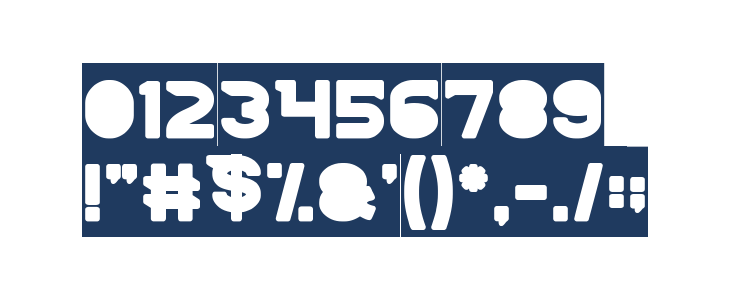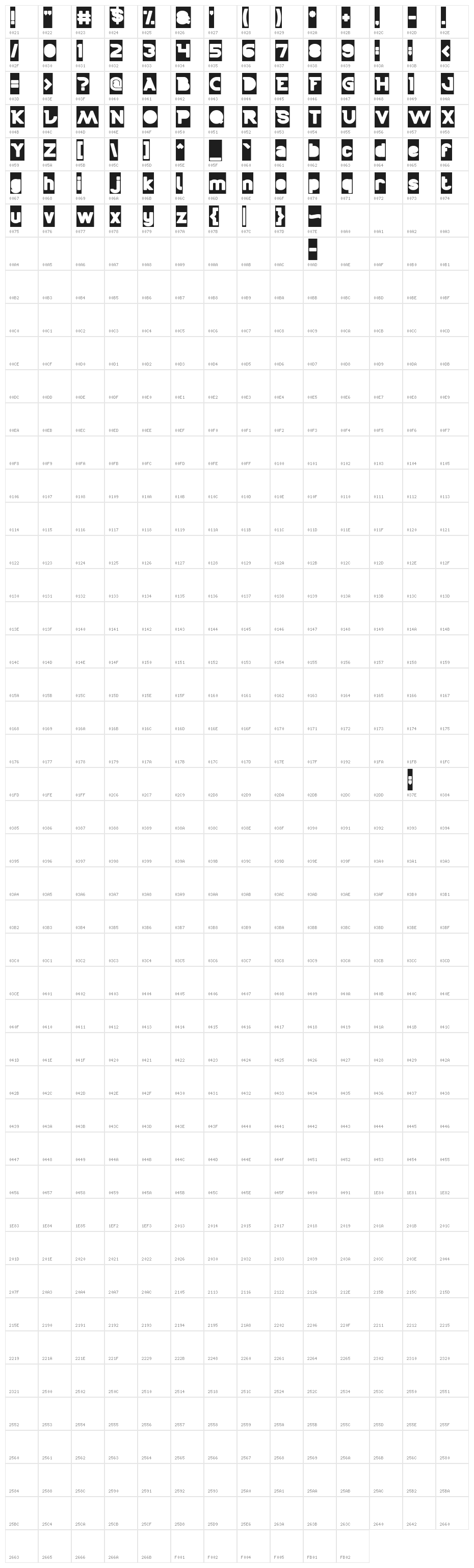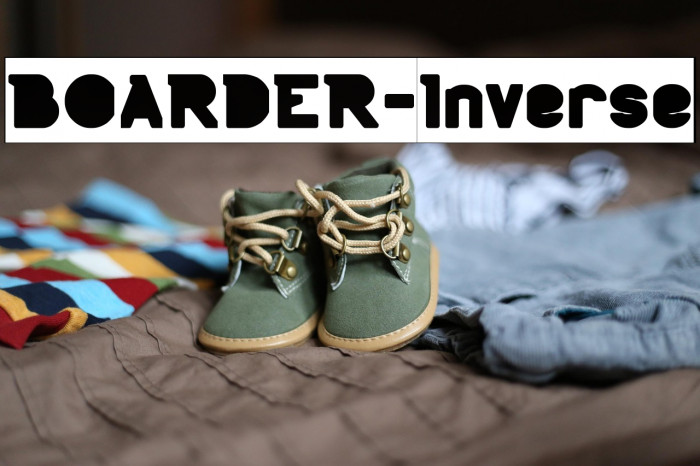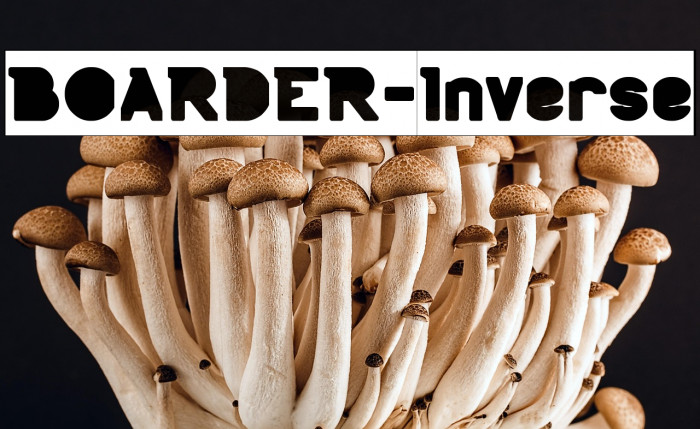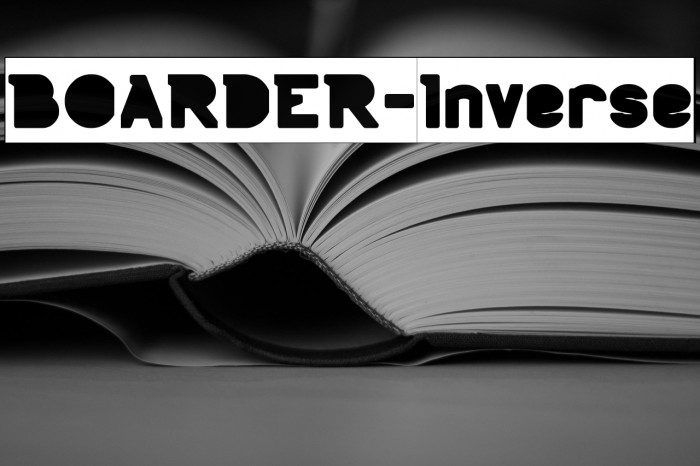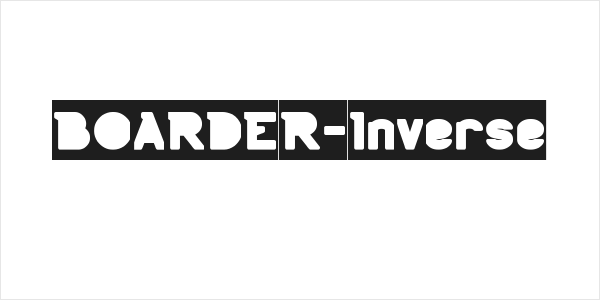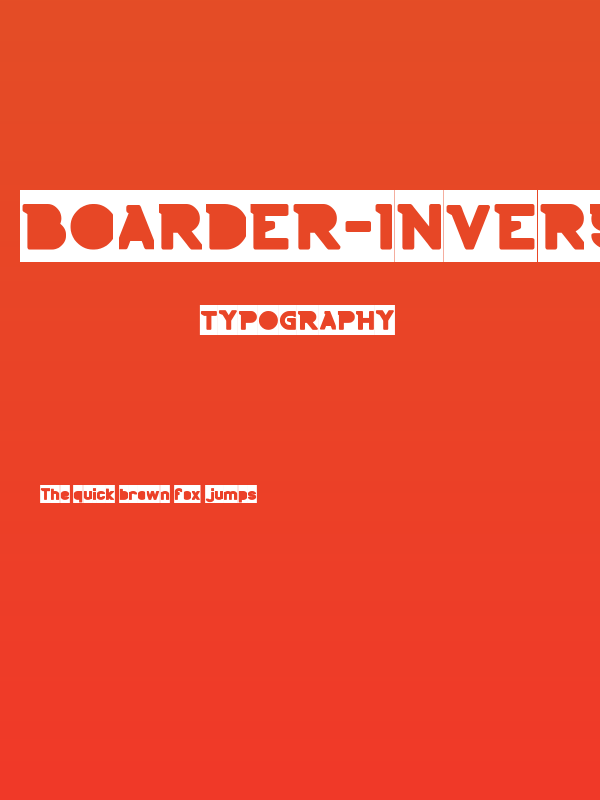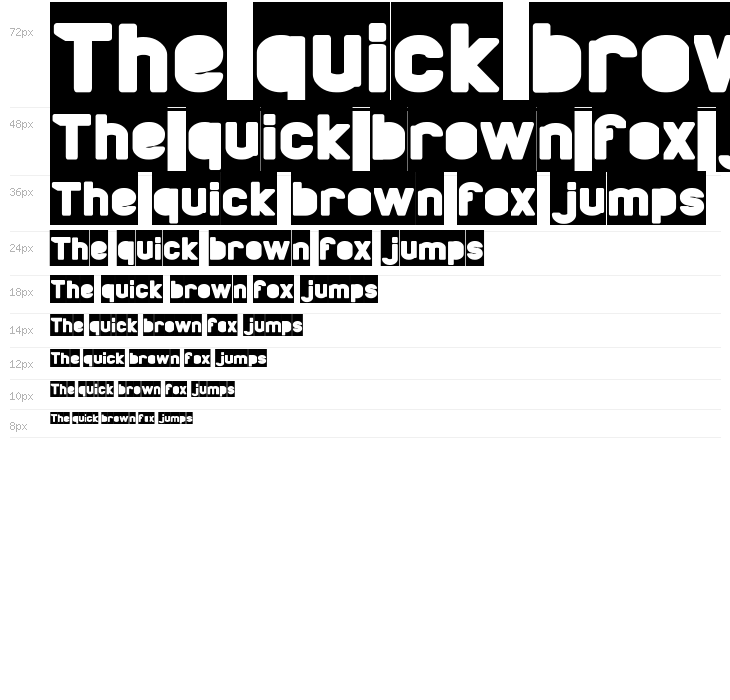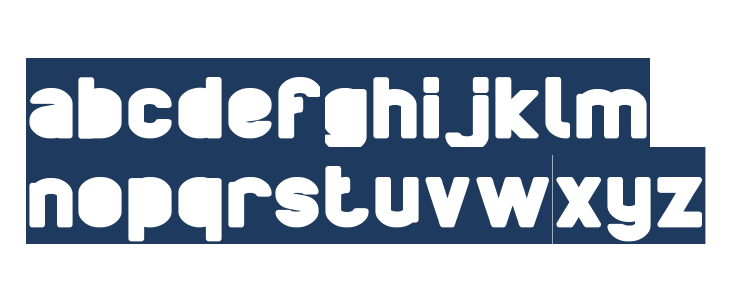
BOARDER-Inverse Font
BOARDER-Inverse Description
This font features bold, blocky characters with a playful and modern aesthetic. Each letter is designed with a unique cut-out style, creating a striking contrast between the solid and negative spaces. The uppercase and lowercase letters maintain a consistent width, giving the font a uniform appearance. The numbers and special characters follow the same design principles, ensuring a cohesive look across all glyphs. Its bold presence makes it ideal for attention-grabbing designs.
| Proposed Projects | Ideal for posters, headlines, branding, and any project requiring a bold, modern statement. |